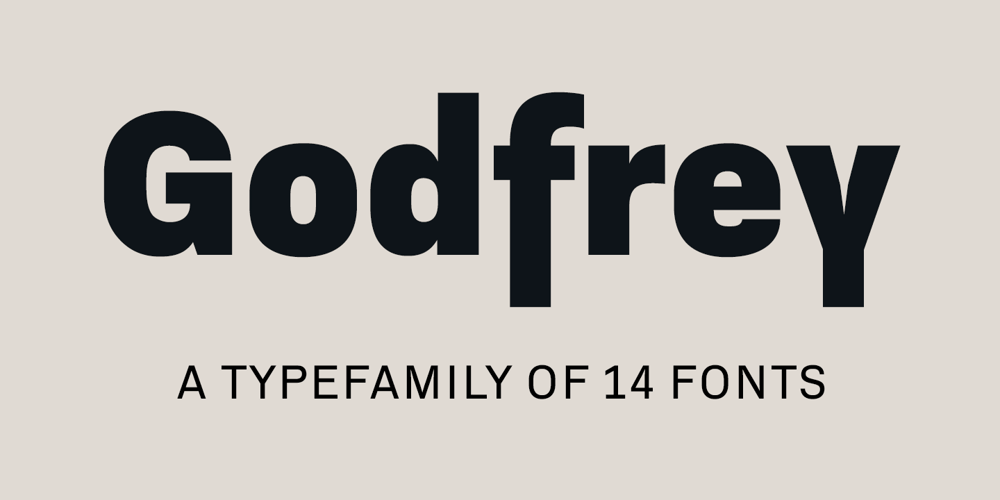
Godfrey Font Family was designed by Ludwig Übele and published by Ludwig Type. Godfrey contains 17 styles and family package options. Godfrey is a compact, straight-sided, sans serif with a solid and reliable personality. Particularly striking are the descenders on ‘f’, ‘j’ and ‘y’ – which are composed completely of straight lines – and the protracted points of the ‘i’ and ‘j’. This emphasis on straight lines and equal proportions lend Godfrey a very structured and clean appearance while also ensuring its very unique character. As a result, Godfrey is a legible typeface that is expressive without being distracting. Visit this minisite to see Godfrey in action.